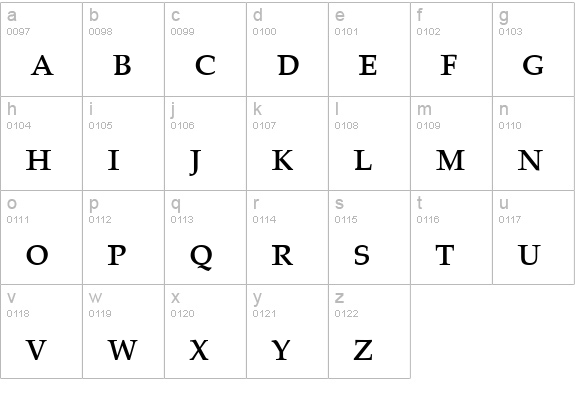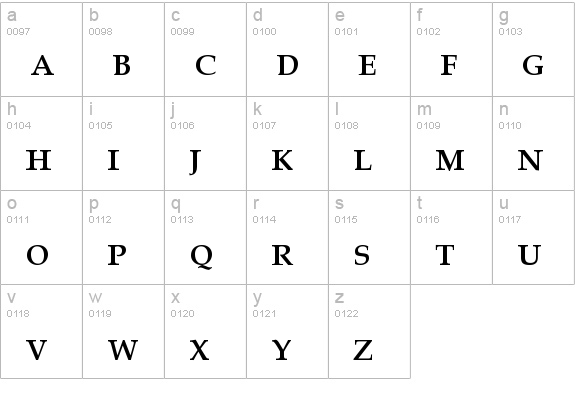
Criteria OldStyle SSi Small Caps is a classic and elegant font that exudes sophistication and charm. Its timeless design elements make it perfect for adding a touch of refinement to any project. The small caps style adds a touch of uniqueness and flair to the overall appearance of the text. This font is versatile and can be used for various design projects, such as invitations, logos, headings, and more. Its clean lines and balanced proportions make it easy to read and visually appealing. Whether you're looking to create a vintage-inspired piece or a modern design, Criteria OldStyle SSi Small Caps is sure to elevate your work. Best of all, this font is available for free download at FontsMarket.com. So you can easily access this high-quality typeface and enhance your design projects without any cost. Don't miss out on the opportunity to use Criteria OldStyle SSi Small Caps to bring your creative visions to life.